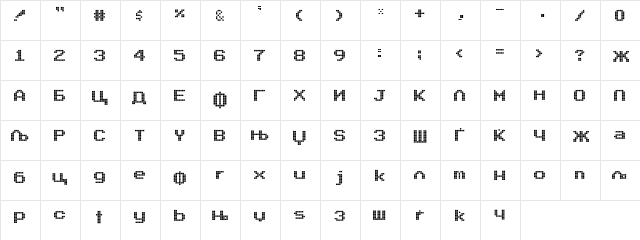
X_Arcade Medium
Design Context for X_Arcade Typeface
X_Arcade takes a measured approach to typography — its balanced proportions and neutral character make it a reliable workhorse for both digital and print work.